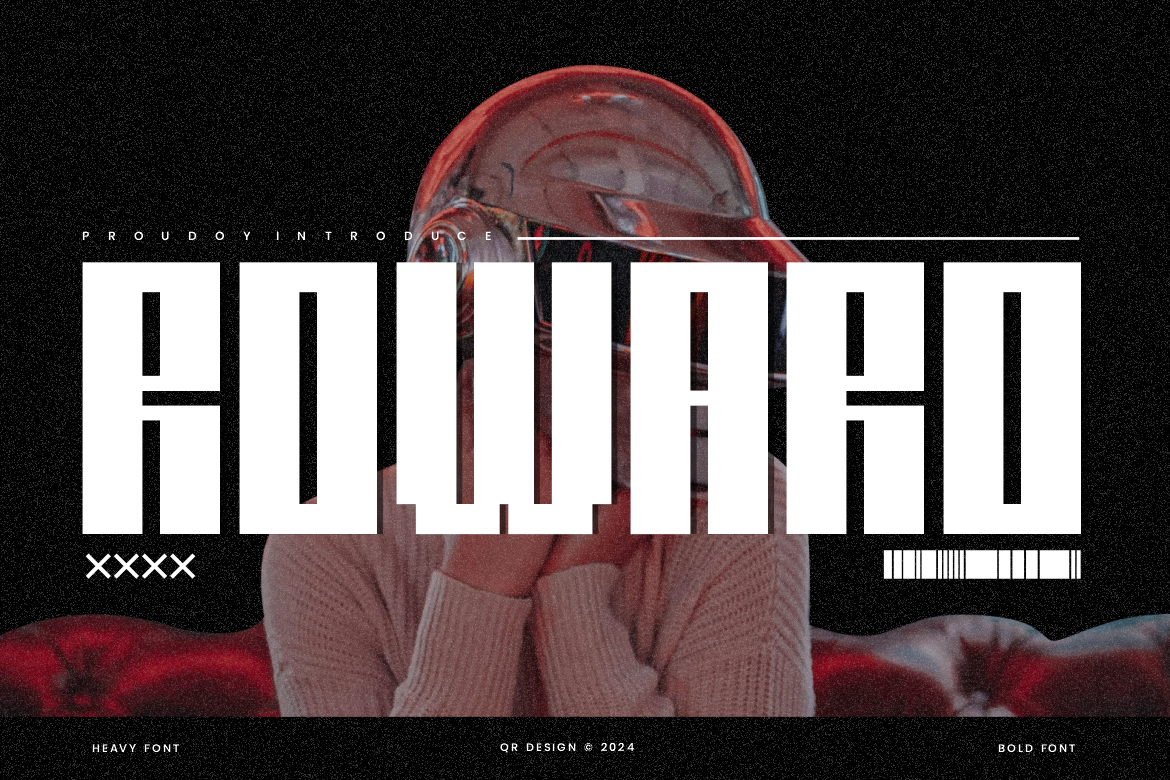
Rowaro - Heavy & Bold Display Font
Rowaro Font is a bold and authentic display font. The font is suitable for any branding project like poster, logo, sport, and many more. Outstanding in a wide range of contexts.